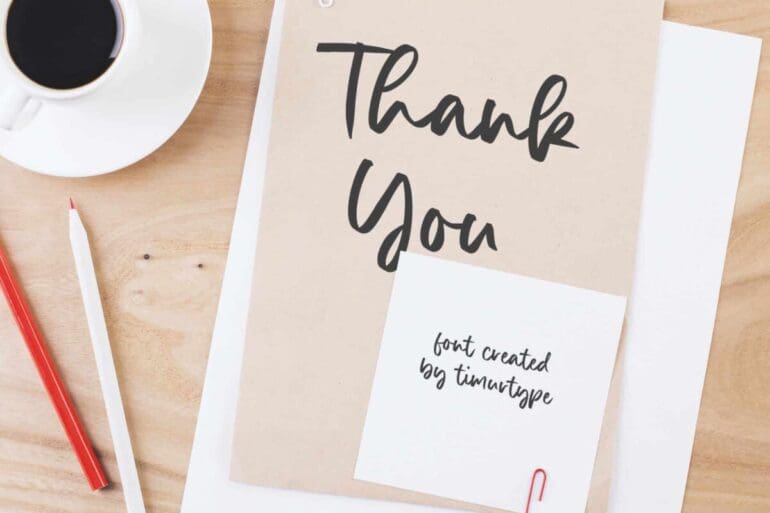
Justica Handwritten Font
Justica is an enchanting Handwritten Font. This versatile script font has a wide spectrum of applications ranging from greeting cards to headlines and is guaranteed to add a romantic feel to your next project.